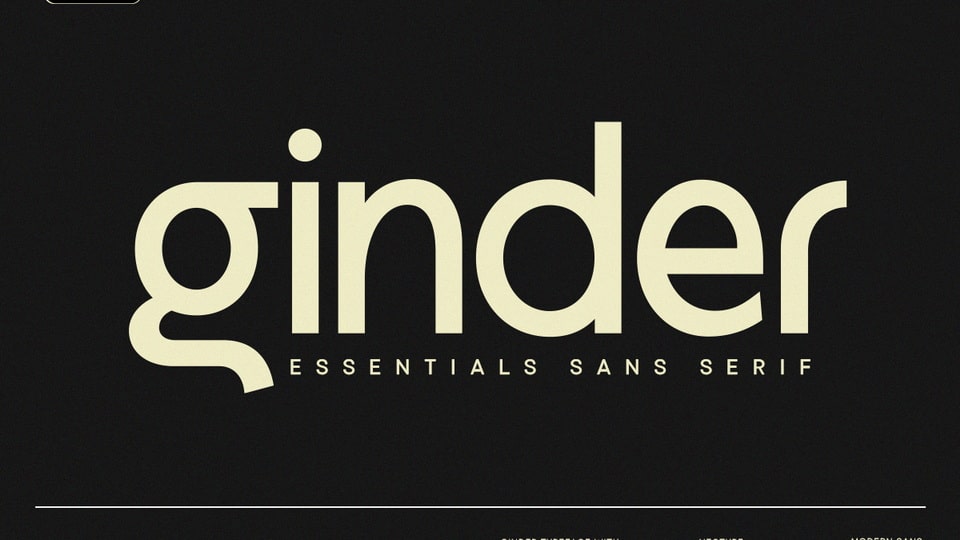
Download NT Ginder font, a modern sans serif with a calm strength. Balanced between clarity and character, its regular weight brings quiet confidence to headlines, branding, and editorial work.